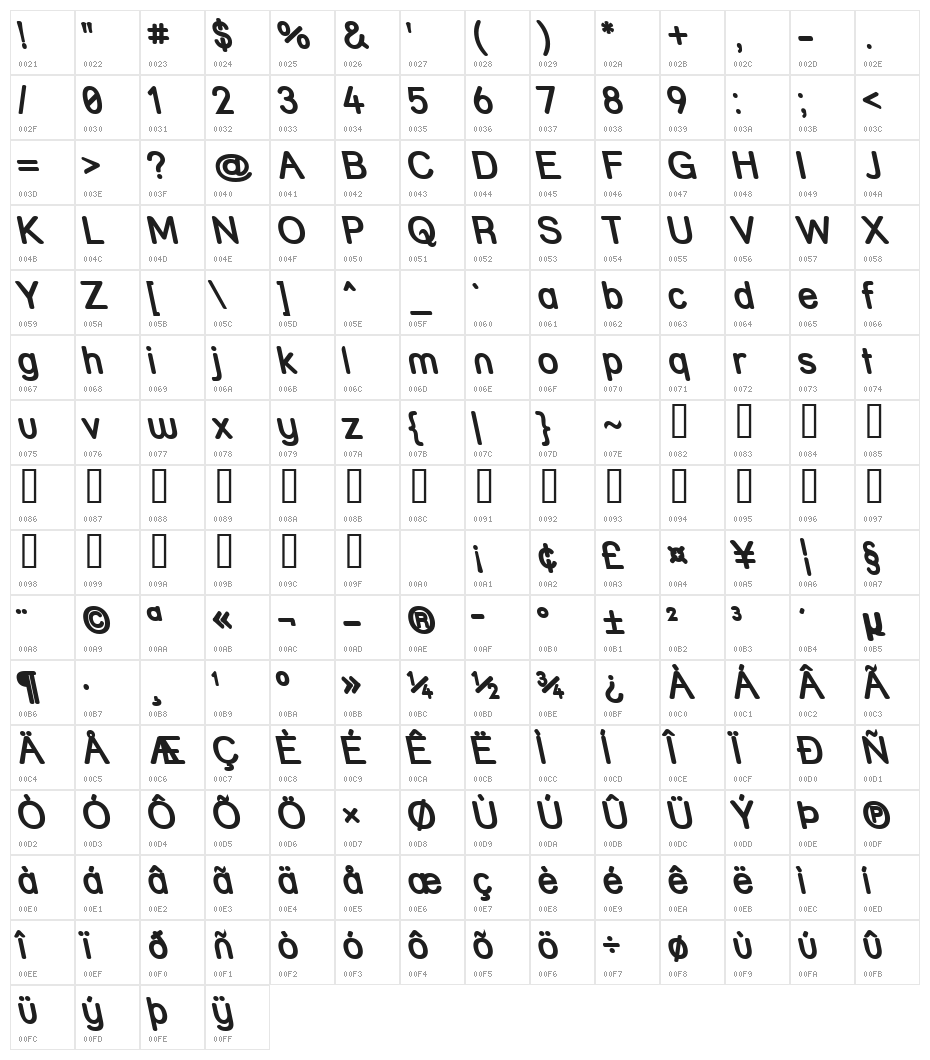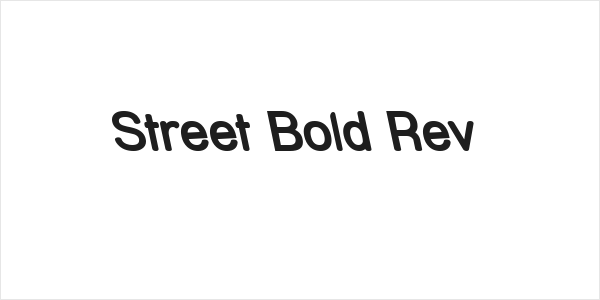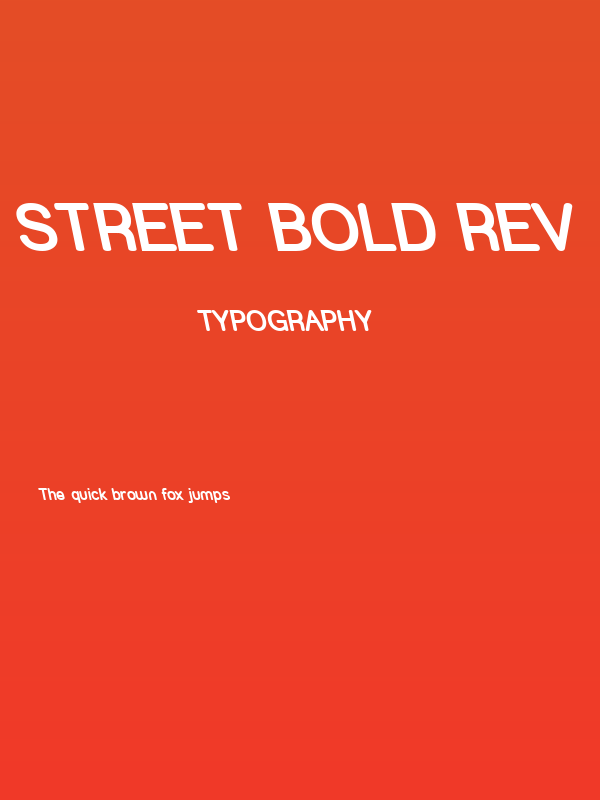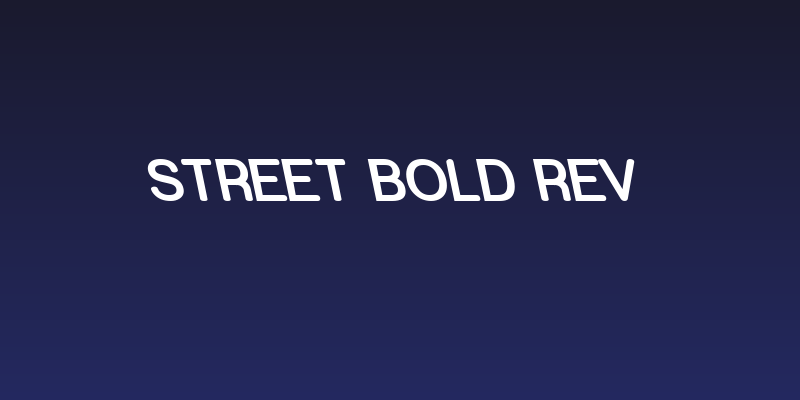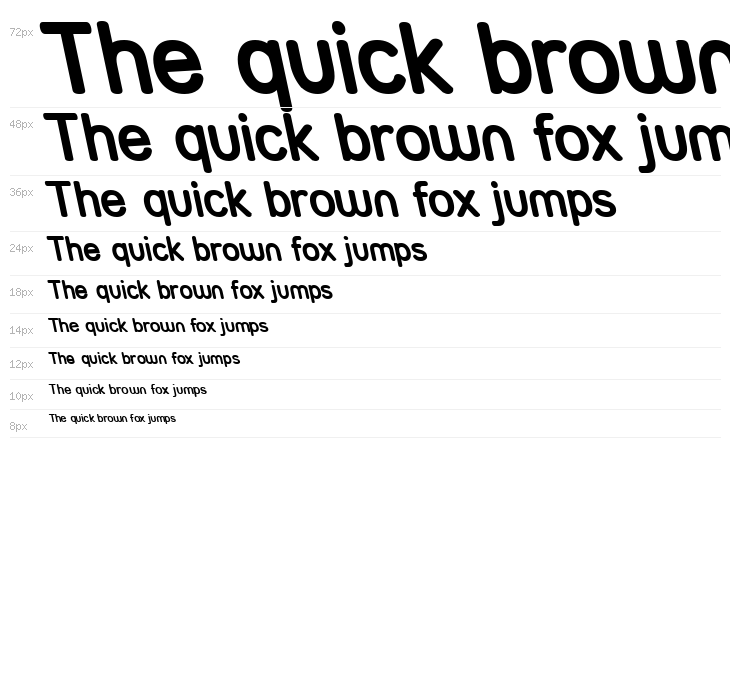
Street Bold Rev Font
Street Bold Rev Description
This font features bold, rounded characters that convey a modern and friendly aesthetic. The letters are evenly spaced with a consistent stroke width, providing a clean and approachable look. The rounded edges soften the overall appearance, making it suitable for a variety of applications where a welcoming and contemporary feel is desired. The numerals and special characters maintain the same rounded style, ensuring uniformity across all text elements. This font's design is versatile, making it ideal for both digital and print media.
Use CaseHeadlines, Logos, Signage
Proposed ProjectsIdeal for branding, signage, headlines, and digital content where a modern and approachable look is needed.